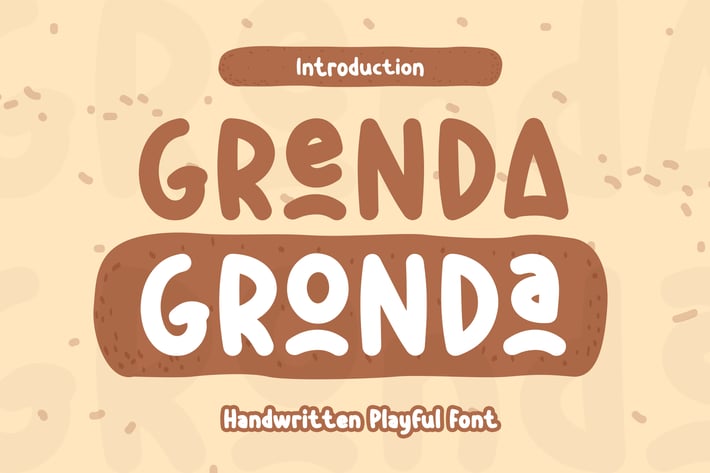
Grenda Gronda - Handwritten Playful Font
Grenda Gronda - Textured Brush Font a unique display typeface perfect for titles, large text, branding, logotypes & graphic design purposes such as posters, pamphlets, and advertisements. This letter font can be a great choice for creating amazing logos, promotional content, and marketing presentations that can bring uniqueness and freshness at its best.
Uppercase and Lowercase letters
Numbering and Punctuations
Alternate